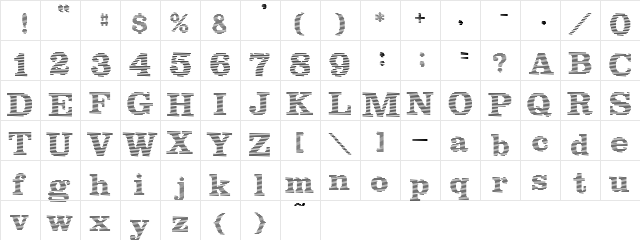
Blue lines Regular
Design Context for Blue lines Typeface
Blue lines is a composed and adaptable typeface that performs quietly and consistently across a wide range of design contexts.